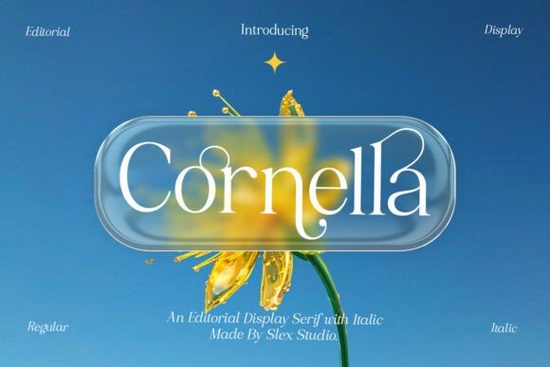
If you're looking for a serif font that balances timeless elegance with modern clarity, Cornella Font is worth a closer look. Designed for visual storytelling, it brings refined contrast, graceful curves, and expressive italic forms to editorial layouts, luxury branding, and special-event stationery. Whether you’re crafting a fashion magazine spread or designing wedding invitations, Cornella adds sophistication without sacrificing readability.
What makes Cornella stand out among serif fonts?
Unlike many display serifs that lean heavily into ornamentation, Cornella strikes a thoughtful balance. Its regular style maintains clean lines suitable for short paragraphs or subheadings, while the italic introduces fluid movement ideal for quotes, pull-outs, or accent text. The typeface draws inspiration from classic editorial typography but updates it with contemporary proportions and subtle detailing, making it versatile across both print and digital mediums.
Designers often pair Cornella with minimalist layouts to let its character shine. It works especially well in contexts where tone matters: think high-end product packaging, boutique brand identities, or editorial features that demand visual authority without appearing stiff.
Who should consider using Cornella Font?
This font caters to creatives who value nuance:
- Editorial designers working on magazines, lookbooks, or cultural publications
- Small business owners building luxury or lifestyle brands (think skincare, fashion, or artisanal goods)
- Print-on-demand sellers creating premium greeting cards, wedding suites, or framed quote art
- Hobbyists and crafters who want professional-looking results for personal projects
Because Cornella includes both regular and italic styles, it offers enough variety for layered typographic compositions without requiring additional fonts. That simplicity can streamline your workflow especially if you’re managing multiple design assets or templates.
How does Cornella compare to other editorial serifs?
While many modern serifs prioritize stark geometry or exaggerated strokes, Cornella leans into organic rhythm. Compare it to Cruel Summer, which carries a bolder, more dramatic flair suited for covers and posters. Or consider Mogerin, a geometric serif with sharper terminals and tighter spacing great for tech or contemporary branding but less fluid than Cornella.
Where does Cornella perform best?
This font truly excels in controlled, intentional settings:
- Fashion editorials: Its italic adds motion to model credits or feature headlines
- Luxury packaging: Clean yet distinctive on labels for perfume, candles, or cosmetics
- Wedding stationery: From save-the-dates to menu cards, it conveys formality with grace
- Branded quotes or social graphics: Stands out without overwhelming the message
Avoid using Cornella for long-form body text it’s a display serif first and foremost. But for anything under 3–4 lines where presence matters, it delivers consistent polish.
Tips for getting the most out of Cornella
Start by testing both styles together. Use the regular for primary headings and the italic for supporting phrases or names. Keep line spacing generous (around 1.3–1.5) to honor its open forms. And when pairing with sans-serifs, choose neutral companions like Helvetica Neue or Inter to avoid competing personalities.
Also, remember that subtlety is key. Cornella doesn’t need heavy effects drop shadows, outlines, or excessive tracking can dilute its elegance. Let the letterforms speak for themselves.
Before you download: Make sure your project aligns with a font that values restraint and refinement. If you’re aiming for bold impact or playful energy, another serif might serve you better. But if your goal is quiet confidence with artistic depth, Cornella could become a go-to in your toolkit.
Quick checklist before using Cornella Font:
- Confirm your use case is display-focused (headlines, logos, short text)
- Test both regular and italic in your actual layout
- Avoid over-styling trust the font’s built-in elegance